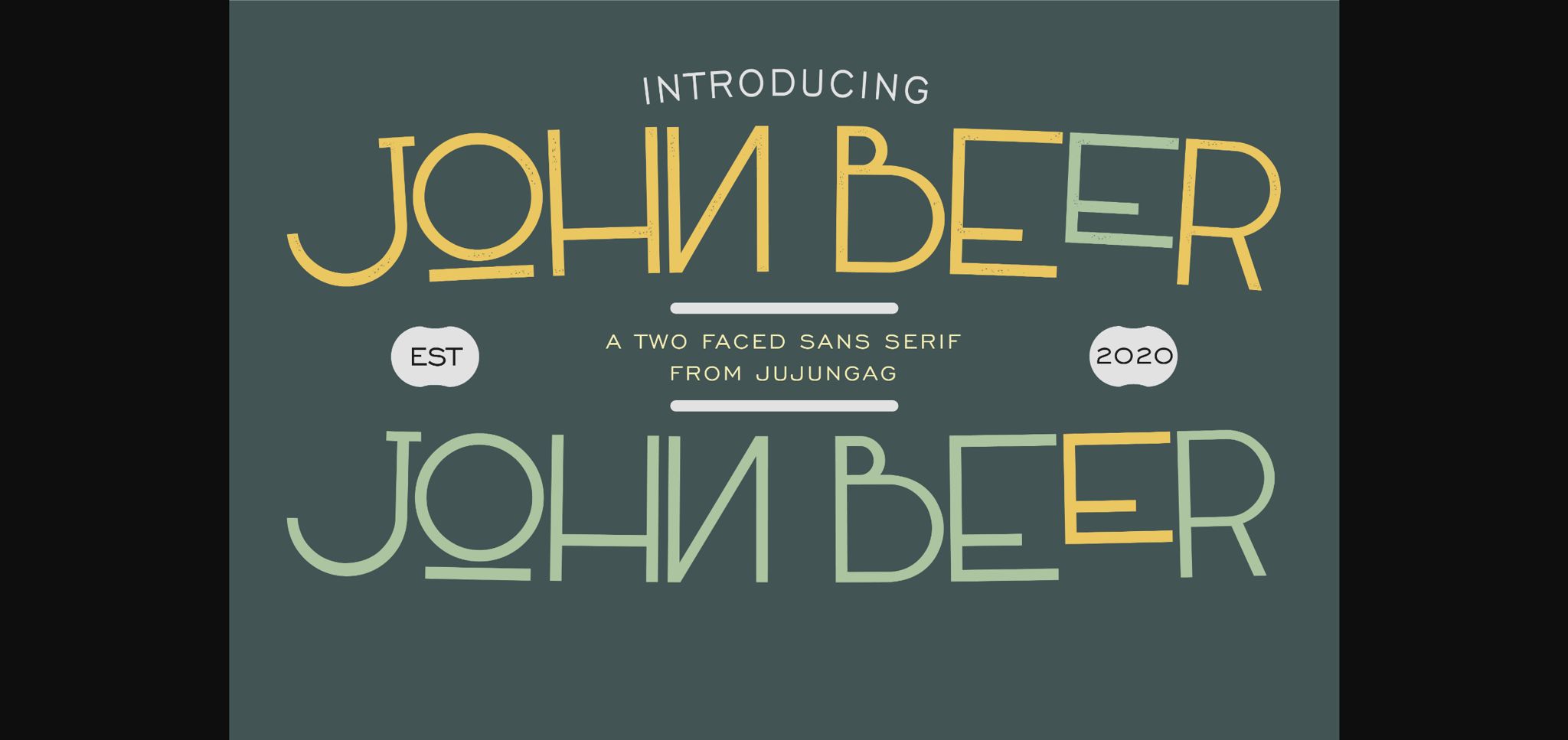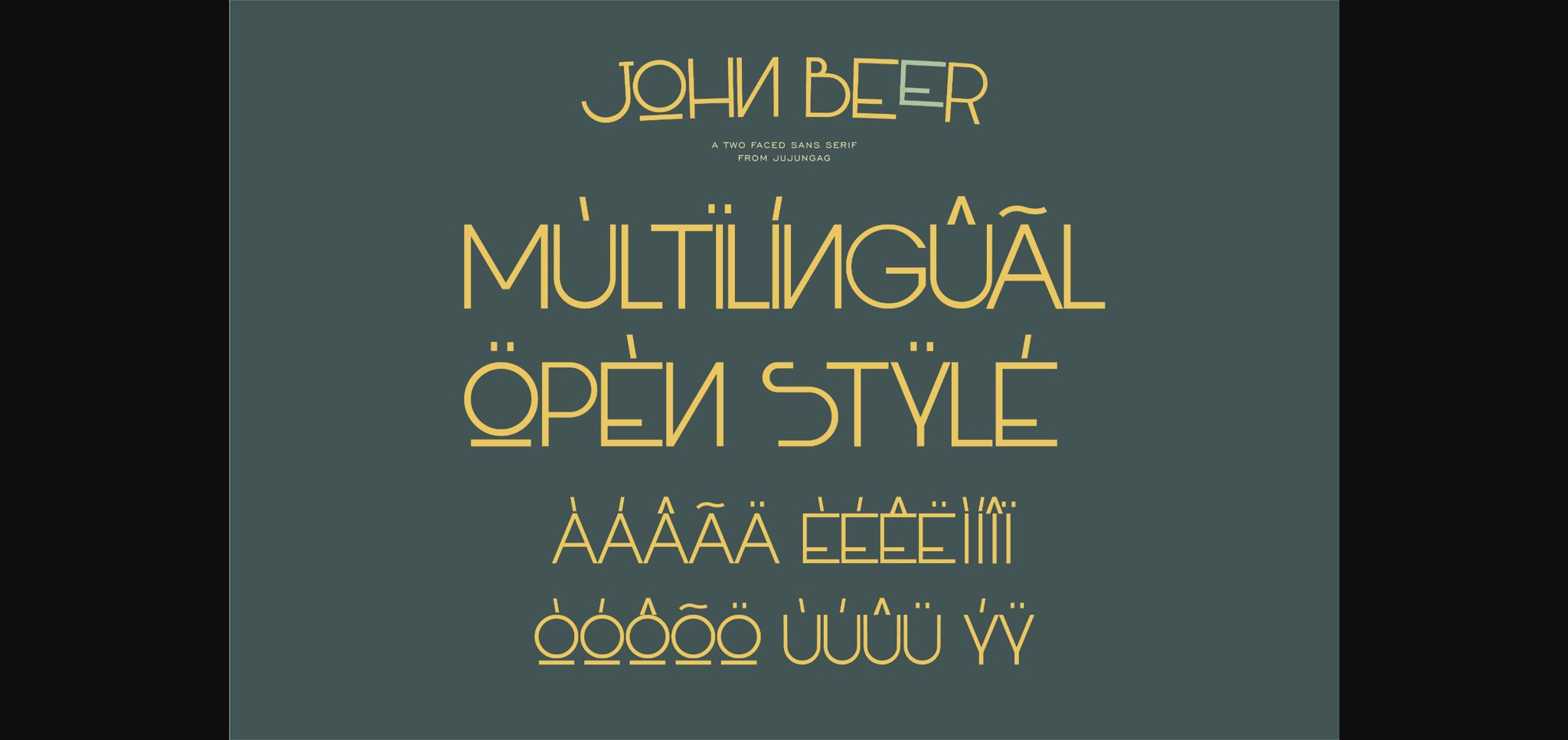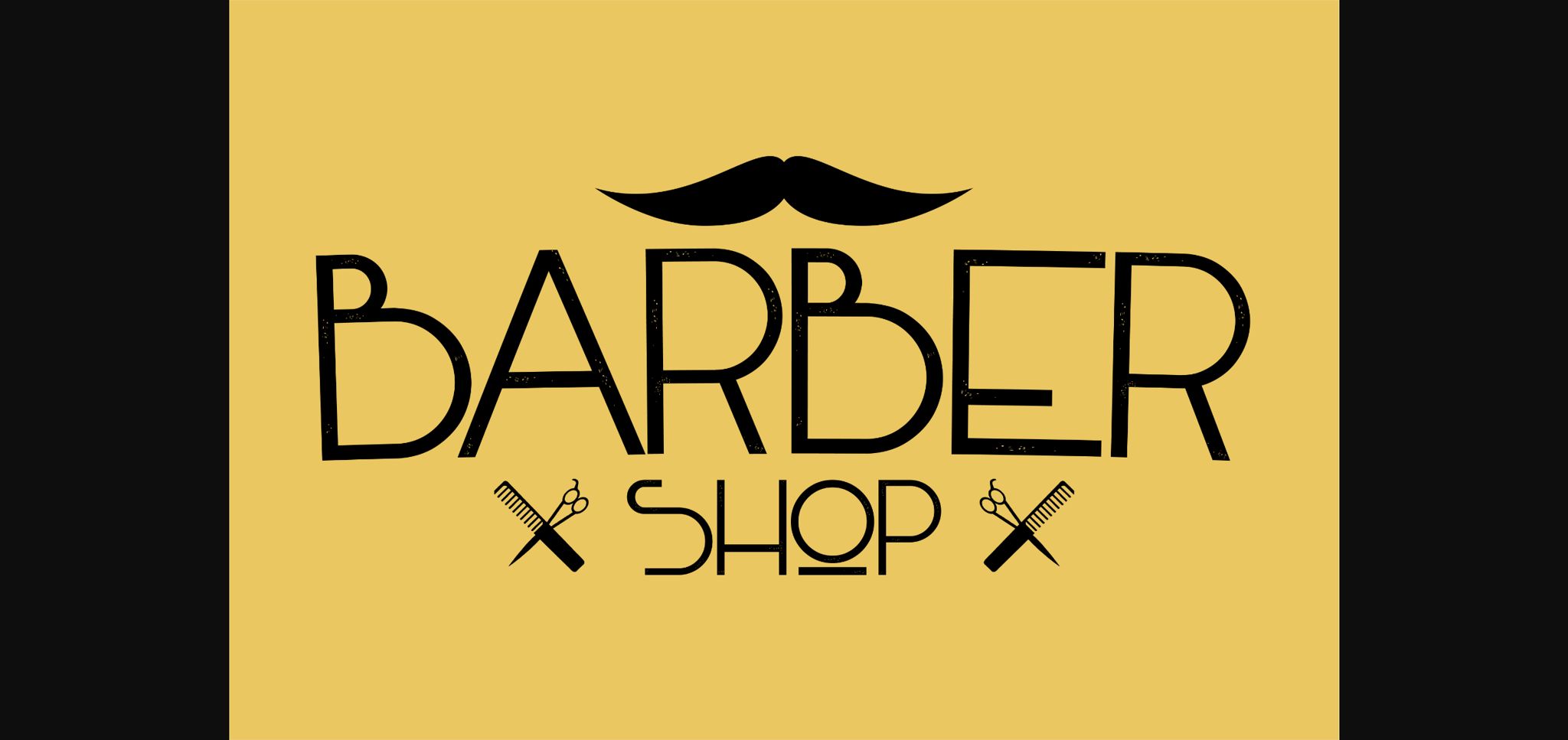
About John Beer Font
John Beer is a two faced, minimal, yet elegant sans serif font. Suitable to a wide variety of designs due to its neat and simple style, John Beer has the potential to become your favorite go-to font, no matter the occasion!